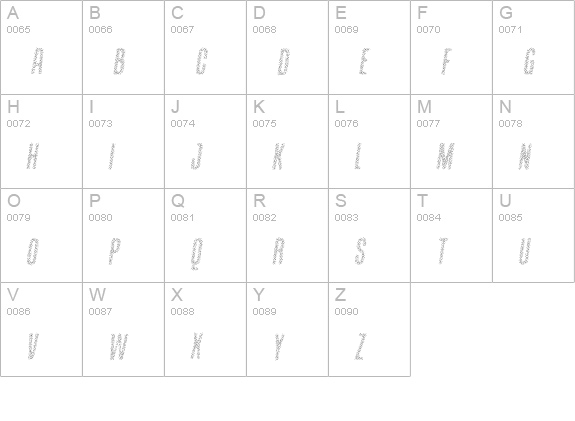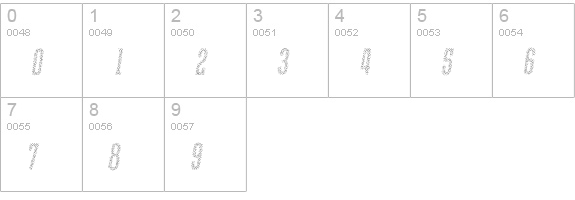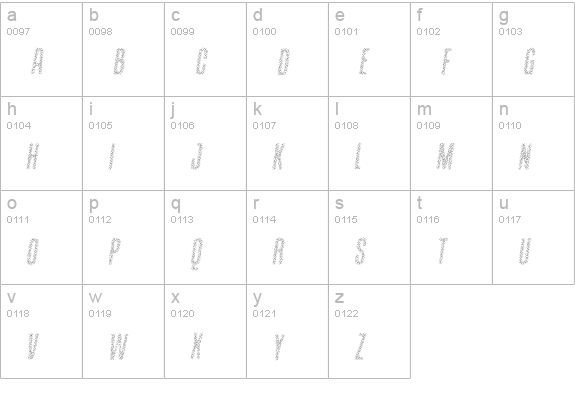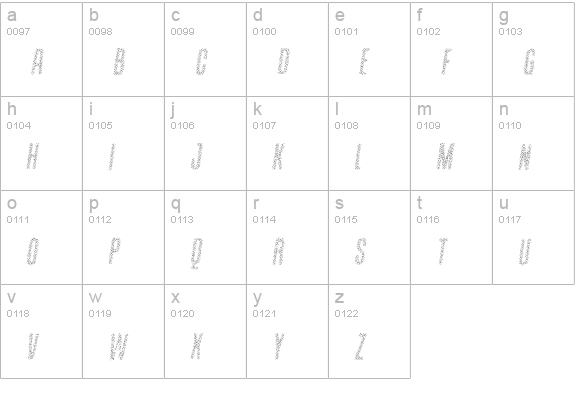
Containment Sparkle Font Details
Containment Sparkle font is a whimsical and eye-catching typeface that exudes a sense of fun and creativity. Its unique design features a dazzling sparkle effect that adds a touch of magic to any project. Perfect for adding a touch of glamour to invitations, posters, or social media graphics, Containment Sparkle font is sure to make your text stand out. What makes Containment Sparkle font even more appealing is that it is completely free for personal and commercial use. You can easily download this beautiful font at FontsMarket.com and start using it in your projects right away. With its playful charm and versatile style, Containment Sparkle font is a must-have for anyone looking to add a touch of sparkle to their designs.